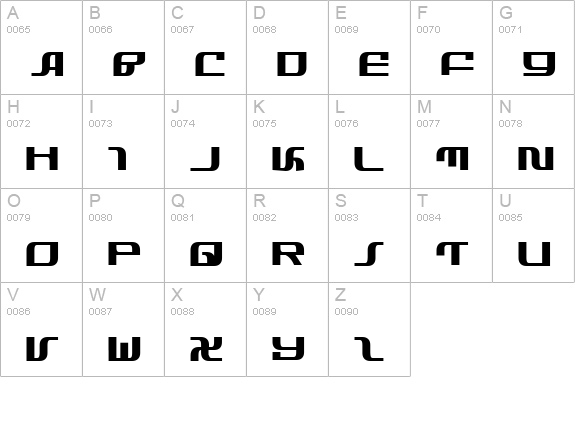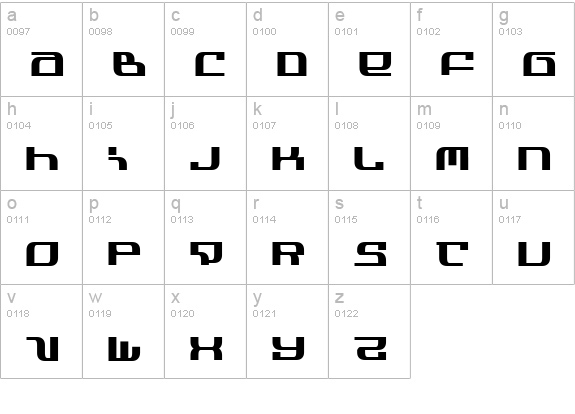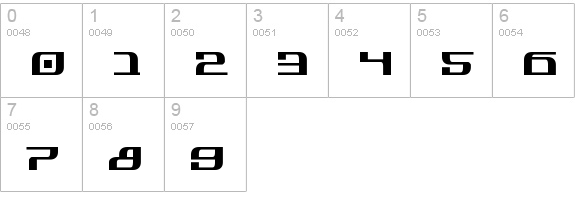
Infinity Formula font is a beautifully crafted typeface that exudes elegance and modernity. Its sleek lines and geometric shapes give it a sophisticated and futuristic look that is perfect for a wide range of design projects. The font is versatile and can be used for various purposes, from branding and advertising to web design and print materials. What sets Infinity Formula font apart is its unique combination of boldness and subtlety, making it stand out while maintaining a sense of refinement. The clean lines and sharp angles of the letters make for a striking visual impact, ensuring that your message is delivered with style and clarity. Best of all, Infinity Formula font is free to download at FontsMarket.com, making it accessible to designers and creatives of all levels. Whether you're working on a personal project or a professional commission, this font is sure to elevate your designs and leave a lasting impression. Download it today and unleash the infinite possibilities of Infinity Formula font.